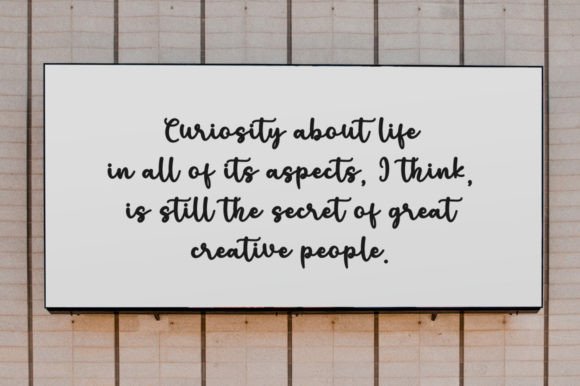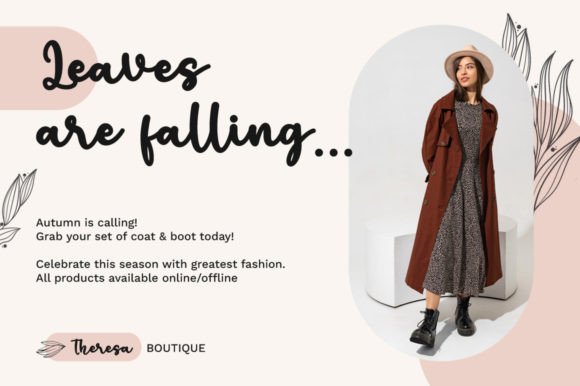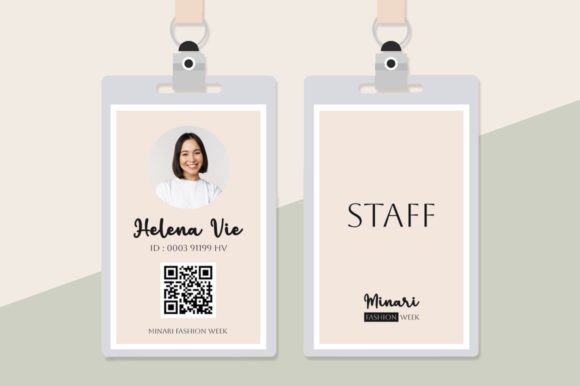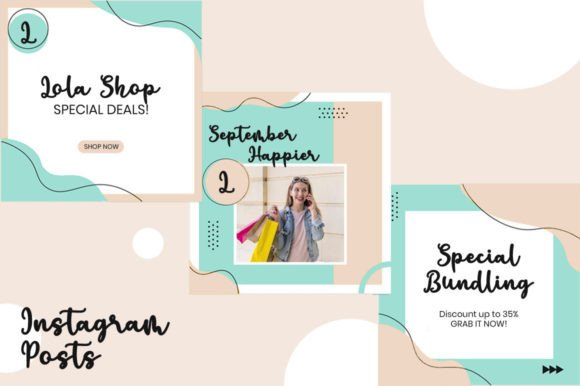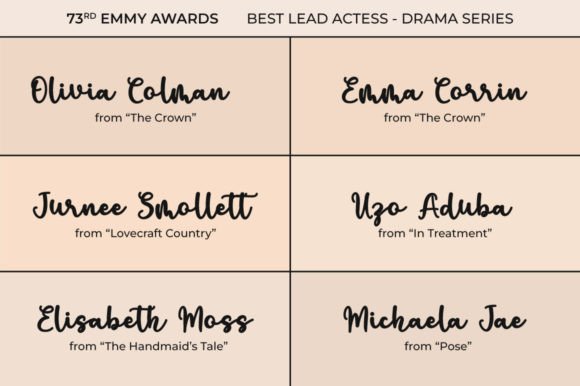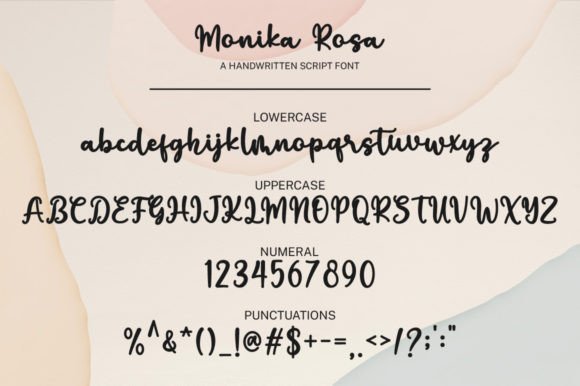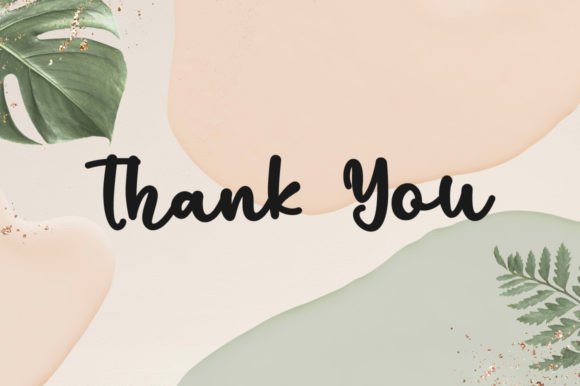
Monika Rosa Font
About Monika Rosa Font
Monika Rosa is a delightful handwritten font that exudes charm and timeless appeal. This font is ideal for various design applications. It focuses on crafting eye-catching logos, establishing memorable branding, and creating impactful quotes that resonate with both elegance and style.
Unique Allure
The allure of Monika Rosa lies in its handwritten grace. It imparts warmth, genuineness, and a profound sense of connection to your designs. Therefore, it is perfect for projects that aim to leave a lasting impression and connect with the audience on a personal level.
Logo Design
Logo design benefits from Monika Rosa’s unique charm. It offers an opportunity to create logos that are visually captivating and evoke trust. The font’s handwritten style adds a distinctive touch that sets your brand apart and creates a memorable visual identity.
Branding Initiatives
For branding initiatives, Monika Rosa’s classic elegance conveys your brand identity with sophistication and memorability. Whether it’s printed materials, digital assets, packaging, or promotional materials, this font imbues your branding efforts with timelessness and authenticity.
Quotes and Messages
Monika Rosa’s appeal extends to quotes and inspirational messages. Its handwritten aesthetic enhances the emotional impact of words, making them relatable and meaningful. Whether you’re creating motivational posters or social media graphics, Monika Rosa conveys your message with grace.
In summary, Monika Rosa is not just a font; it’s a design asset embodying timeless elegance and charm. Its suitability for logo design, branding, and quotes makes it invaluable for designers striving to create visually captivating work. Embrace Monika Rosa, and see how it elevates your creative projects with grace.
This font is also ideal for wedding invitations or personal stationery with its elegant touch. Additionally, it works well in digital media like websites or apps where a personal feel is desired. Its versatility ensures that no matter the project, Monika Rosa will add a unique flair that captivates viewers.